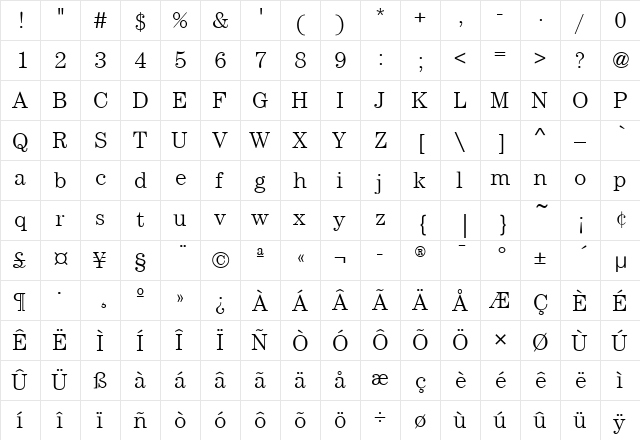
CenturyITC Light
Design Context for CenturyITC Typeface
CenturyITC is a composed and adaptable typeface that performs quietly and consistently across a wide range of design contexts. The delicate stroke weight brings airiness and refinement to layouts.